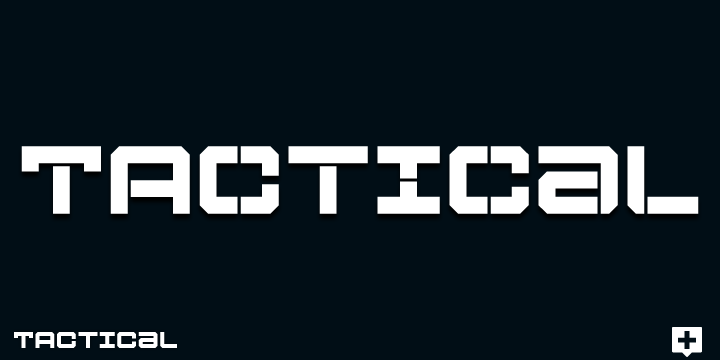
Tactical Font is perfect for military operation branding, strategic planning materials, security company logos, defense contractor communications, law enforcement agencies, tactical gear marketing, combat training programs, survival equipment packaging, strategic consulting firms, and mission-critical documentation.
What makes Tactical Font so exciting is its strategic precision that embodies the disciplined focus and operational excellence required for mission-critical situations and tactical operations. This typeface features bold, structured letterforms with military-inspired construction and commanding presence that communicates authority and tactical readiness. The font's disciplined and professional character delivers unwavering reliability and strategic clarity, making it perfect for organizations requiring absolute precision and appeal to audiences who value tactical expertise, strategic thinking, and the uncompromising standards of professional military and security operations.
Tactical Font family includes Regular, Bold, Black, and Stencil weights, along with military alternates and operational variations. The family also features special character sets including tactical symbols, military insignia, and strategic decorative elements that enhance the font's connection to defense operations and tactical excellence themes.
The Tactical Font Free Download package offers designers access to military-grade typography that brings operational precision to any strategic project. This commanding typeface combines tactical design principles with maximum functionality, creating a powerful visual tool for defense brands and security-focused organizations. Whether you're developing military contractor identities, designing tactical publications, or creating strategic marketing materials, this font provides the disciplined character needed to communicate tactical excellence and operational readiness.
Tactical Font supports comprehensive character sets including Latin alphabets, numbers, punctuation marks, and special tactical symbols. The font's strategically constructed spacing ensures maximum clarity for mission-critical communications while maintaining commanding visual impact across all operational applications. Its OpenType features include contextual alternates, tactical ligatures, and military typography options that expand creative possibilities for defense design projects.
Professional designers choose Tactical Font for projects requiring authentic military appeal and tactical precision aesthetics. The font excels in applications where strategic authority and operational excellence are essential, offering the perfect solution for brands seeking to communicate tactical expertise, mission readiness, and connection to professional military standards. Its tactical character makes it ideal for defense contractors, security firms, and strategic consulting organizations.
The Tactical Font Free Download provides creative professionals with an exceptional opportunity to explore military typography. With its strategic character variations, tactical design elements, and operational quality, this font represents outstanding value for designers, defense organizations, and creative agencies specializing in tactical visual communications that celebrate operational excellence and the disciplined precision of military professionalism and strategic mission execution.